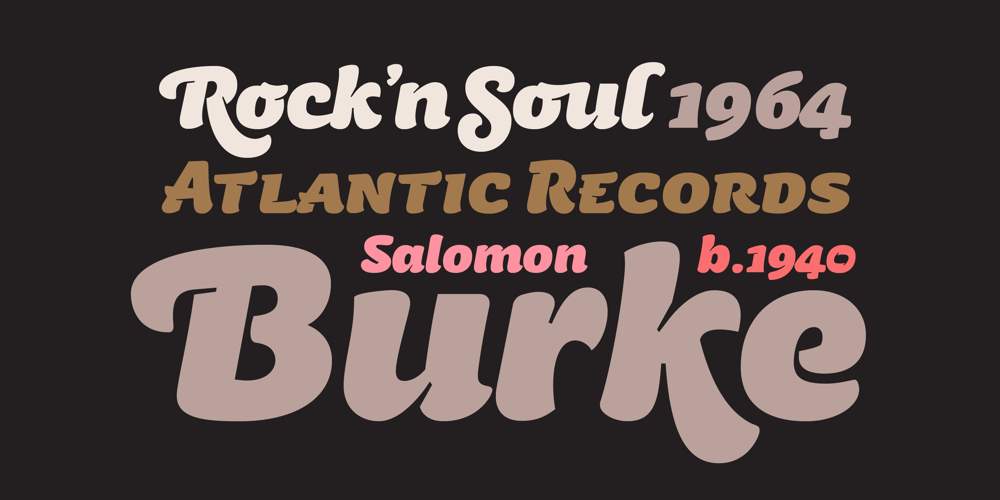
Nougat Script
Nougat Script font
Nougat Script Font Family was designed by Aldus De Losa and published by Sudtipos. Nougat Script contains 1 styles and family package options. The first glyphs of Nougat Script were born in 2010 to honor the birth of my first chubby and charming daughter, Siena. The ongoing project with significant progress was presented at Tipos Latinos, the biennal of Latin America typography where Nougat Script was selected among 70 of the best fonts. After a long pause, the project had a powerful restart at the begining of 2018. In those days, it not only grew in number of signs but in complexity of behavior. There are 4 different types of writing within the same font file accesible via opentype features: Script (base or normal), two glyphic alternatives with well differentiated swashes and finally a small cap version. Nougat Script has a fresh and relaxed lettering attitude combined with the typographic harshness for elegant text compositions.